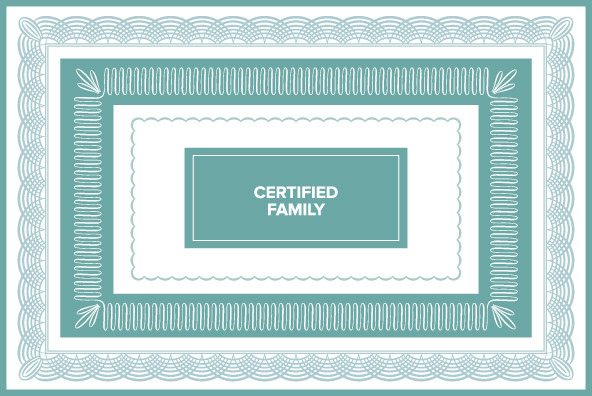
Certified Series Font
Certified Series Font is perfect for professional certification programs, educational institution branding, quality assurance communications, accreditation materials, corporate training documentation, official certificate design, professional badge graphics, and authoritative advertising campaigns. This credible typeface works exceptionally well in both digital applications and print media where official recognition and professional standards are fundamental design requirements.
What makes Certified Series Font so exciting is its authoritative interpretation of professional credibility through precisely crafted letterforms that embody the trust and reliability associated with official certification and professional recognition systems. The font features confident characters with institutional proportions, professional spacing, and official details that communicate competence, authority, and the rigorous standards of certified excellence. Its credible personality and professional heritage make it ideal for organizations seeking to establish trust in certification markets while appealing to audiences who value verified expertise, professional development, and the assurance of officially recognized qualifications.
The Certified Series Font family includes comprehensive weight variations from regular to bold, along with matching styles and professional alternates. Each style maintains the typeface's authoritative character while offering extensive multilingual support, professional numerals, certification-focused punctuation marks, and special symbols designed to enhance official communications and credentialing branding efforts across global professional and educational markets.
This remarkable typeface represents the perfect convergence of institutional authority and contemporary typography for education and professional development industries. Whether you're developing certification program identities, creating professional training materials, or designing official recognition systems, Certified Series Font Free Download delivers the institutional credibility and versatility needed for successful professional communications. The font's certification aesthetic makes it particularly effective for educational institutions, professional organizations, training companies, and businesses emphasizing quality standards and verified professional competence.
The meticulously engineered professional construction and optimized certification performance in Certified Series Font ensure maximum institutional authority while maintaining clear communication across all official applications. Its credible presence makes it ideal for professional branding, certification marketing materials, and official communications where its full certified character can create lasting confidence with audiences seeking verified expertise and the assurance of officially recognized professional standards.